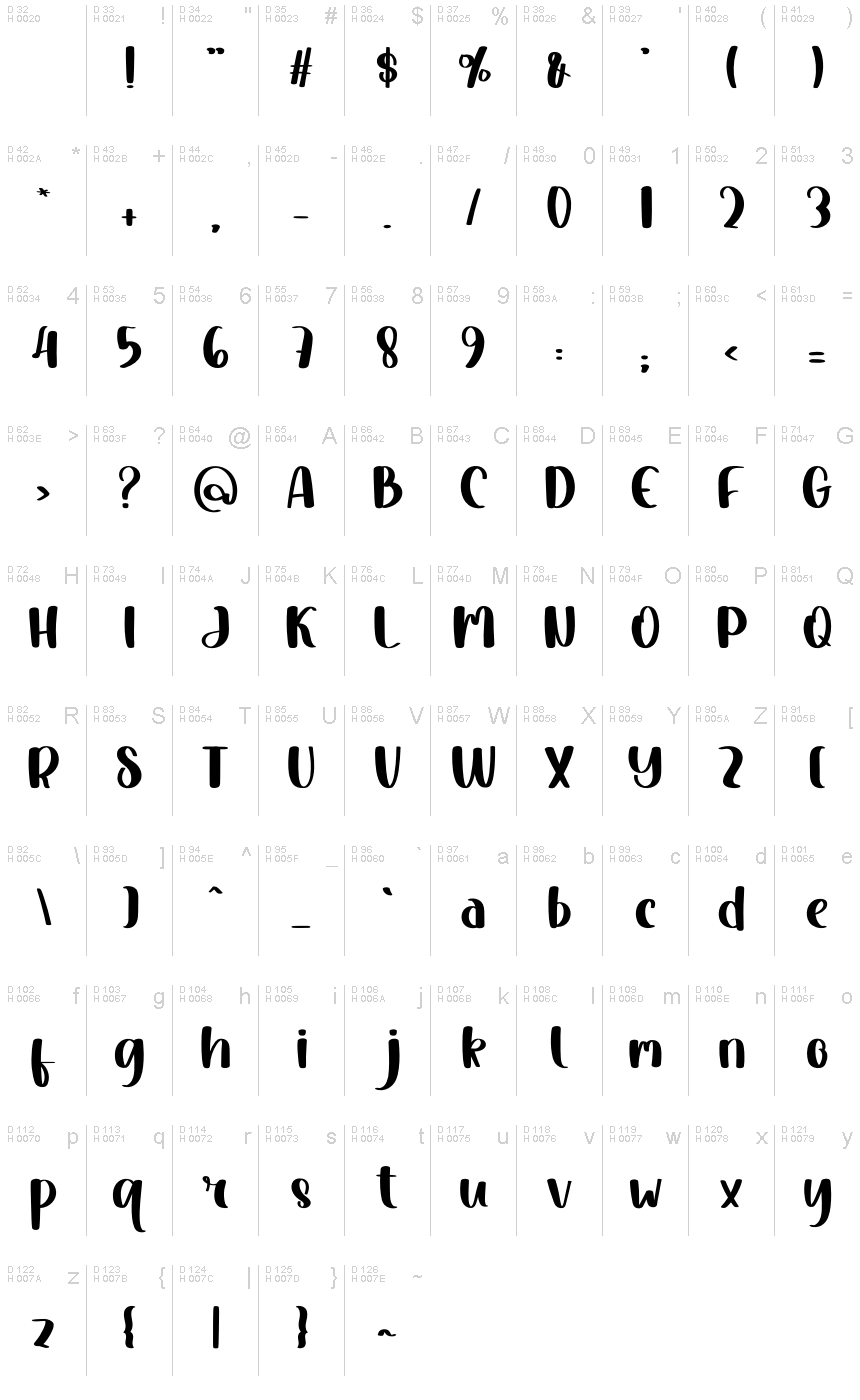
March Vibes
March Vibes by PiPi Creative is a brush-style font that exudes dynamism and energy with its bold strokes. Its handcrafted aesthetic injects a personal touch into any design, making it feel spontaneous and vibrant. The assertive presence of this typeface adds depth to headlines and stands out in branding materials, where a striking visual impact is desired.
Ideal for creative projects that demand an organic, yet impactful voice, March Vibes excels in contexts such as eye-catching social media posts, spirited advertising campaigns, and artistic product packaging. Its distinctive character ensures that messages not only capture attention but also resonate with an engaging warmth.